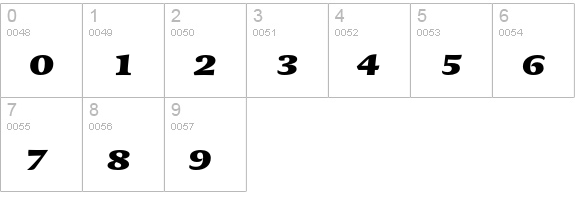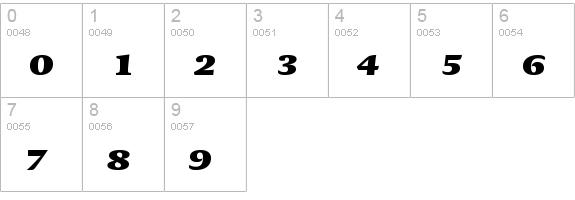
DTLDorianTCaps-HeavyItalic is a bold and stylish font that exudes a sense of modernity and sophistication. Its heavy italic design adds a touch of elegance and drama to any project, making it the perfect choice for headlines, titles, and branding materials. The sleek, geometric letterforms of this font make a strong visual impact, while still remaining highly legible. Best of all, DTLDorianTCaps-HeavyItalic is available for free download at FontsMarket.com. This means you can easily access and use this stunning font for all your design needs without any cost. Whether you're working on a poster, website, or logo, DTLDorianTCaps-HeavyItalic is sure to make a statement and elevate your design to the next level. Download it today and enhance your projects with this striking and versatile typeface.